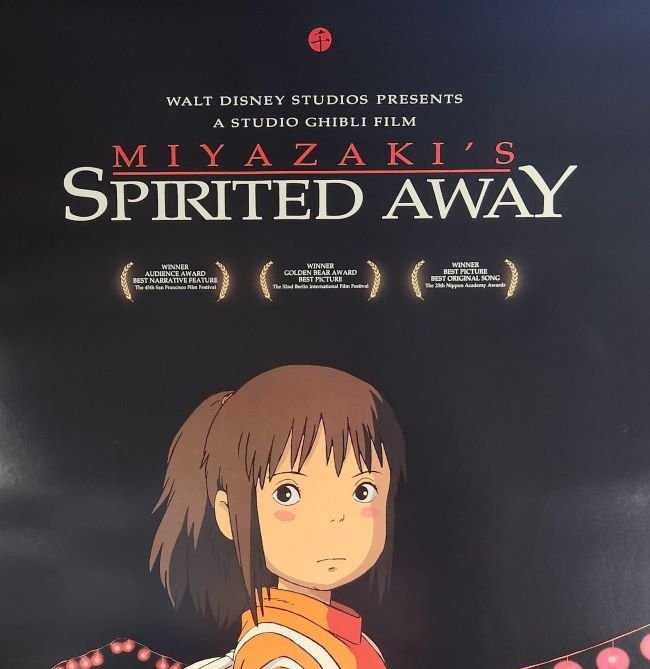
Spirited Away Font
Spirited Away font drifts between the familiar and the otherworldly — much like Hayao Miyazaki’s enchanting 2001 animated film itself. The title lettering draws its inspiration from Palatino, the timeless serif designed by Hermann Zapf in 1950, whose graceful curves and humanist proportions lend the title an air of quiet elegance. It’s typography that feels handcrafted rather than mechanical — warm, considered, and gently steeped in tradition.
That softness is precisely what makes it so well-suited to the film’s visual world, where beauty and strangeness coexist in perfect balance. Designers looking to evoke that same sense of gentle wonder — for illustrated book covers, fantasy-themed editorial work, animated project titles, or any creative piece that benefits from refined yet approachable typography — will find Palatino a deeply versatile and emotionally resonant choice that transcends the single film it so naturally calls to mind.